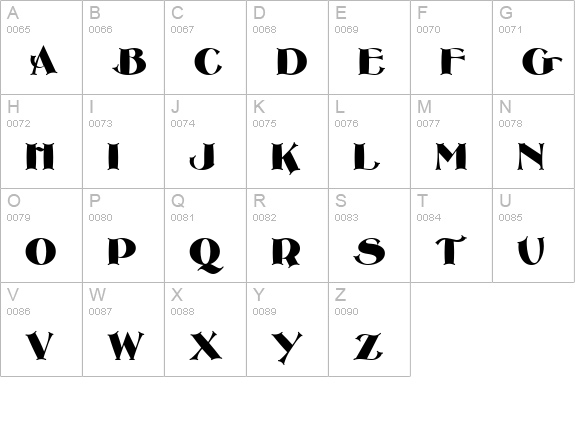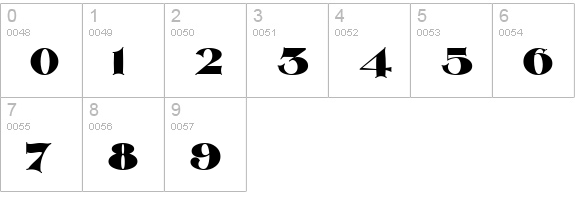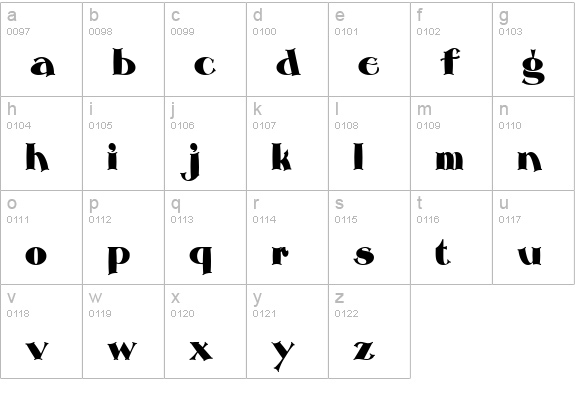
Roman Holiday Extra Bold Font Details
Roman Holiday Extra Bold is a strong, high-contrast variant in the Roman typeface family \xE2\x80\x94 well suited to headlines, attention-grabbing titles, and strong calls-to-action.
Roman Holiday Extra Bold font is a stunning and bold typeface that exudes elegance and sophistication. With its strong and eye-catching design, it commands attention and adds a touch of class to any project. The thick and distinct letterforms make a powerful statement, perfect for headlines, titles, and branding materials. What sets Roman Holiday Extra Bold font apart is that it is available for free download at FontsMarket.com. This means that you can easily access this premium font without any cost, making it a valuable addition to your font collection. Whether you are working on a design project, creating marketing materials, or simply looking to enhance your typography, Roman Holiday Extra Bold font is a versatile choice that will elevate your work to the next level. Download it today and unleash the power of this bold and beautiful typeface.